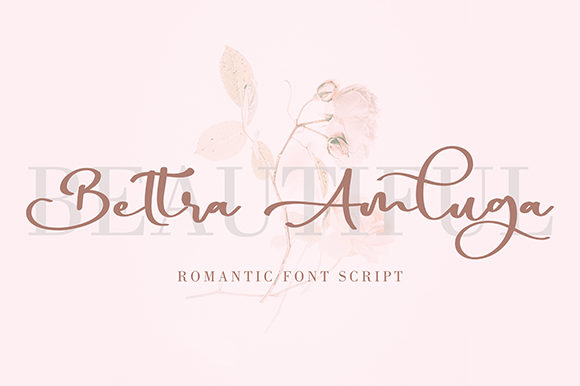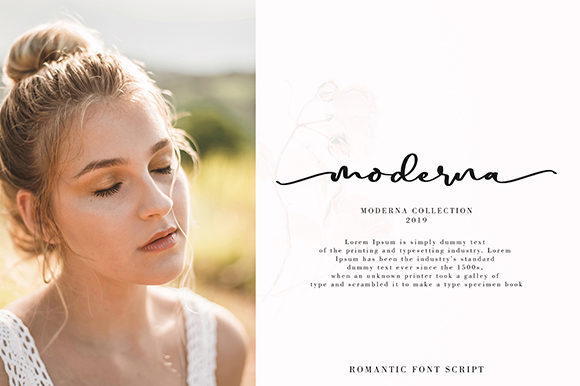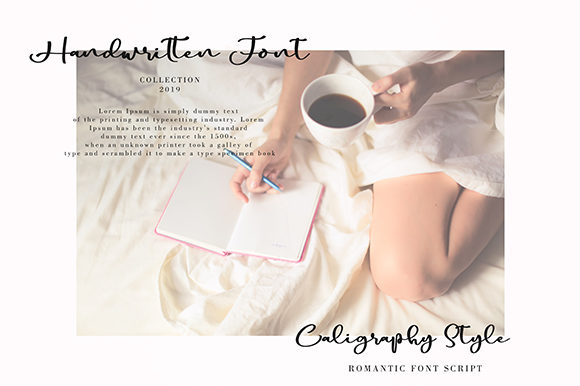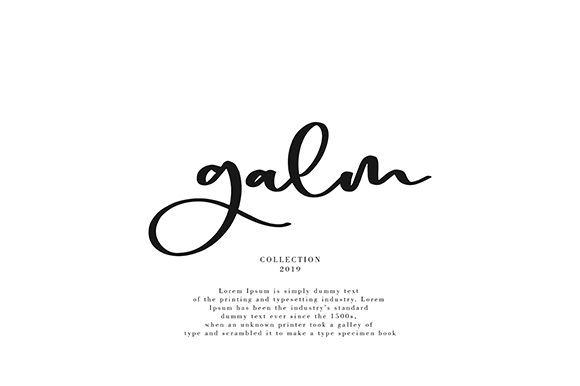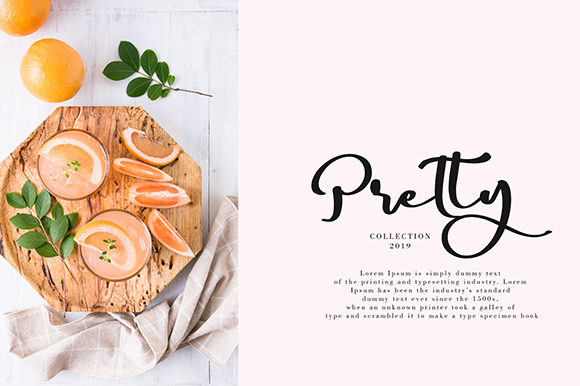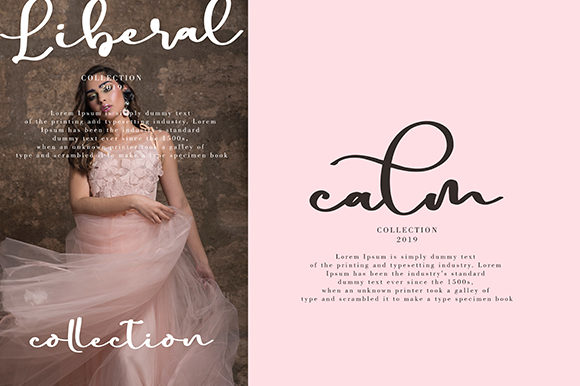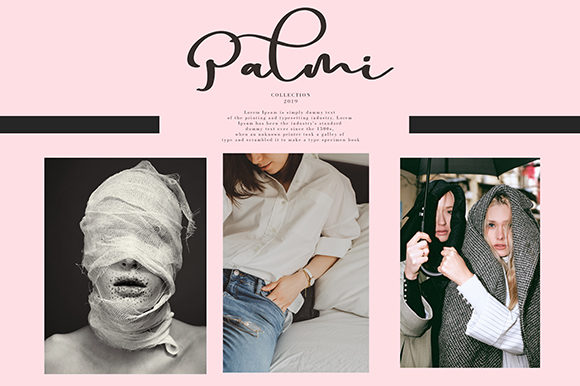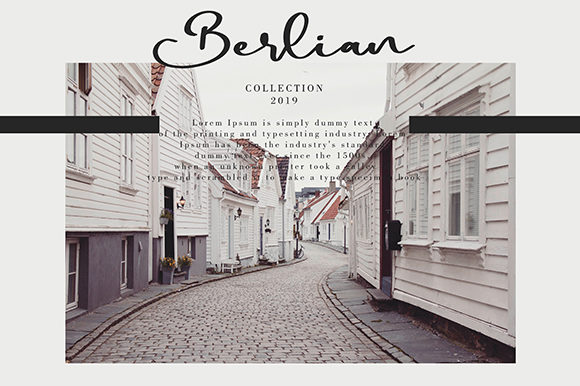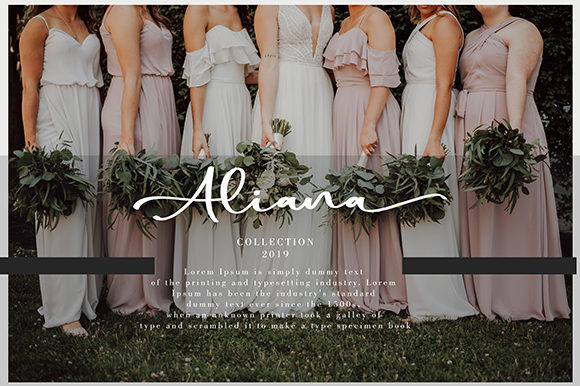
HomeScript FontsBettra Amluga Font Script Fonts Bettra Amluga Font FacebookXPinterestWhatsApp Bettra Amluga Font Poster 2 Bettra Amluga Font Poster 3 Bettra Amluga Font Poster 4 Bettra Amluga Font Poster 5 Bettra Amluga Font Poster 6 Bettra Amluga Font Poster 7 Bettra Amluga Font Poster 8 Bettra Amluga Font Poster 9 About Bettra Amluga Font Bettra Amluga is a sweet and charming script that will easily add a personal twist on any design idea. DOWNLOAD ON CREATIVE FABRICAThis font is sold and delivered by Creative Fabrica. Font Canyon may earn a commission if you buy through this link. People also explored Handstitch Outline Font Amalynta Beauty Font Kids Note Font Konstanhigh Font Swan White Font Mens Berry Bella Canvas 3001 Tee Mockup Beside Font Fleshy Family Font Meadow Font 301 0 TagsBettra Amluga Font Previous articleTalmano FontNext articleVelvet Lousitone Duo Font LEAVE A REPLY Cancel reply Comment: Please enter your comment! Name:* Please enter your name here Email:* You have entered an incorrect email address! Please enter your email address here Website: Save my name, email, and website in this browser for the next time I comment. Personal Use Free Maharany Personal Use Free Read more about this font Rina Personal Use Free Read more about this font Proudly Personal Use Free Read more about this font Bebas Neue Font Personal Use Free Read more about this font BLOG Using Fonts in Digital Marketing: Tips to Strengthen Your Brand Identity In the realm of digital marketing, every visual element plays a crucial role in shaping a brand's identity, and fonts are no exception. The... Best Fonts for T-Shirt Design – Top 2025 Picks Free Fonts Risk: Why Free Fonts Can Be Dangerous for Designers Elegant Wedding Invitation Fonts – Handwritten & Script Fonts